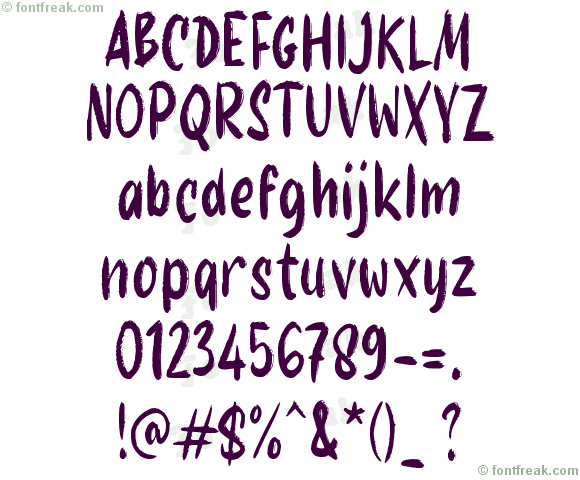
GERHAN
About GERHAN
Introducing the GERHAN font by Wahyu Eka Prasetya, a captivating display typeface that effortlessly blends creativity with functionality. This font falls under the decorative category, featuring a unique hand-drawn style that adds a personal touch to any design project. The GERHAN font showcases irregular stroke weights, giving it an organic feel, while the playful character shapes evoke a sense of whimsy and charm. The spacing is well-balanced, ensuring readability without sacrificing artistic flair.
The versatile nature of the GERHAN font makes it suitable for a variety of applications. It shines in contexts such as wedding invitations, where its charming aesthetic can enhance the romantic feel of the design. Additionally, it works wonderfully for movie posters, adding a dramatic yet approachable touch that captures attention. Restaurant menus also benefit from its unique character, making dishes appear more enticing and approachable. Furthermore, small business owners can utilize this font for branding and promotional materials, allowing their business to stand out in a crowded market.
What sets the GERHAN font apart is its ability to convey emotion and character while maintaining legibility. Its distinctive style resonates with audiences, making it a memorable choice for any design project. Don’t miss the opportunity to enhance your creative endeavors with the GERHAN font free download, and let your designs speak volumes.